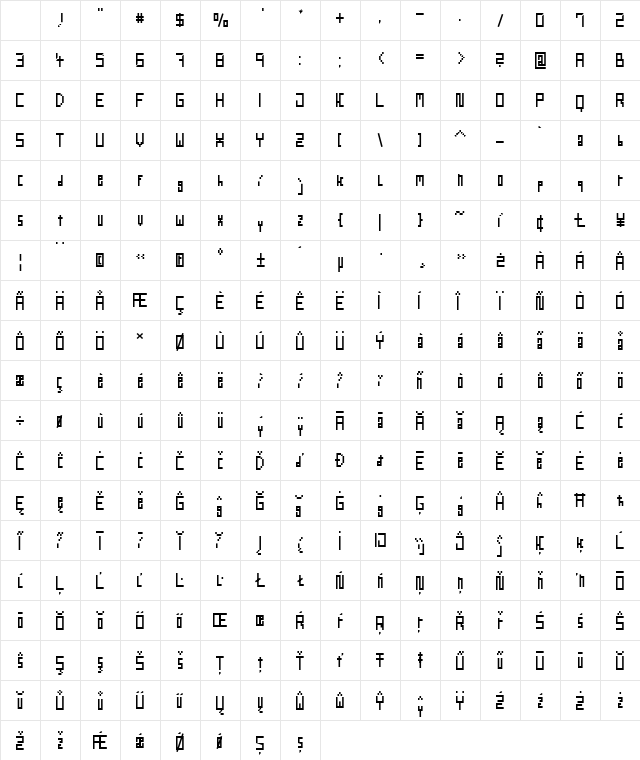
Complete webPixel Regular glyph index. Displaying only characters natively supported by webPixel Regular font.
webPixel is rooted in pixel-grid construction, making it a natural fit for game UI, retro computing aesthetics, and digital nostalgia projects.
Pro Tip: Use webPixel at sizes that align with its pixel grid for the sharpest rendering - scaling to non-integer multiples can introduce unwanted blur.